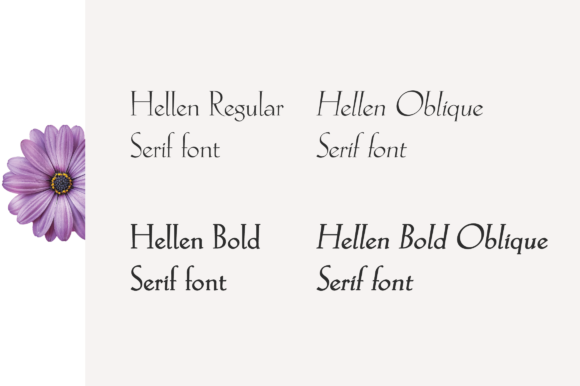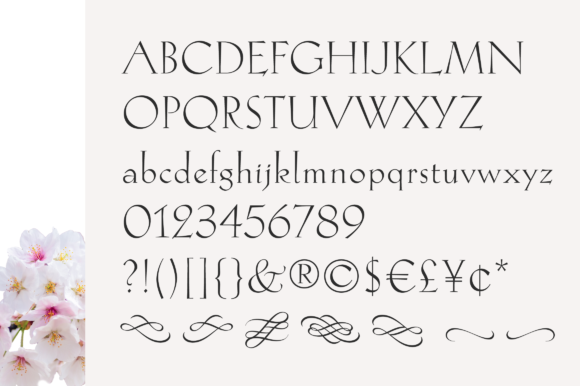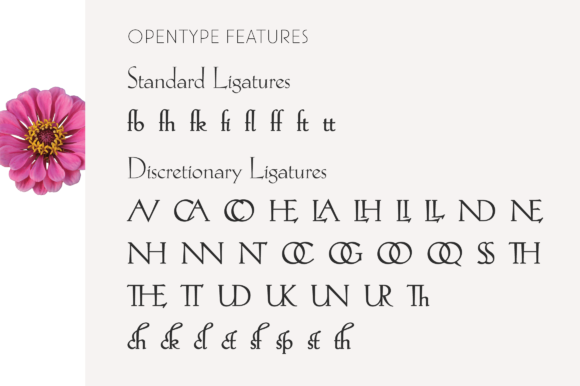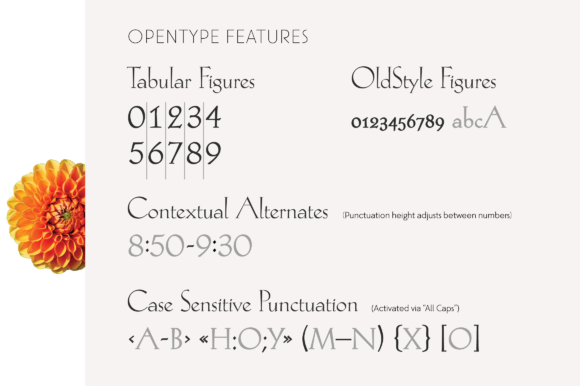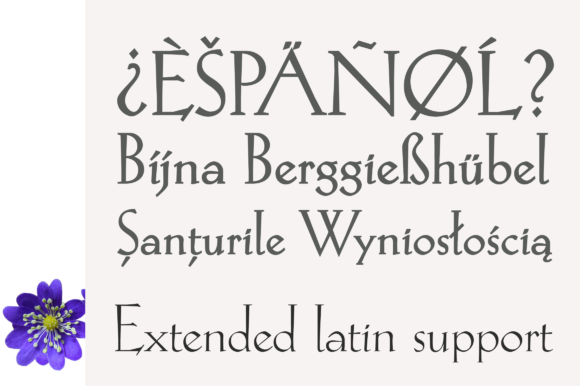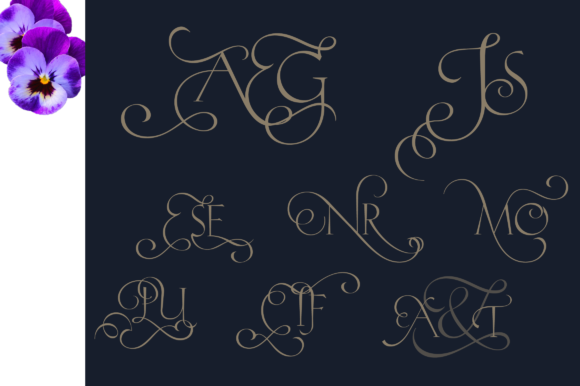
The Timeless Elegance of Hellen Font: A Classic Serif Typeface for Sophisticated Designs
In the world of typography, few fonts have managed to stand the test of time like the Hellen Font. This elegant classic serif font, based on the Koch Antiqua typeface, was created in 1922 by the renowned German designer Rudolf Koch. With its delicate features and low x-height, the Hellen Font is a masterpiece designed specifically for decorative and display use. In this article, we’ll explore the history, characteristics, and uses of the Hellen Font, making it a must-read for designers and crafters looking to elevate their projects.
A Brief History of Hellen Font
The Hellen Font has its roots in the Koch Antiqua typeface, designed by Rudolf Koch in 1922. Koch, a prominent figure in the world of typography, was known for his work with the German foundry, Klingspor. The Koch Antiqua typeface was one of his most notable creations, characterized by its elegant and refined features. The Hellen Font is a modern interpretation of this classic typeface, offering a range of styles to suit various design needs.
Characteristics of Hellen Font
The Hellen Font is distinguished by its delicate features and low x-height, making it an ideal choice for decorative and display use. The font’s classic serif design exudes elegance and sophistication, perfect for projects that require a touch of refinement. The Hellen Font family includes regular, bold, and oblique styles, providing designers with a range of options to suit their creative vision.
Uses of Hellen Font
The Hellen Font’s versatility makes it suitable for a wide range of design projects. Some of the most popular uses of this font include:
- Wedding Invites: The Hellen Font’s elegant features make it perfect for wedding invitations, adding a touch of sophistication to your special day.
- Book Covers: The font’s classic design and delicate features make it an excellent choice for book covers, particularly for fiction and non-fiction titles that require a touch of elegance.
- Headlines: The Hellen Font’s bold and oblique styles make it ideal for headlines, adding a touch of drama and flair to your designs.
- Logotypes: The font’s unique features make it suitable for logotypes, providing a distinctive and memorable brand identity.
- Posters: The Hellen Font’s elegant design makes it perfect for posters, adding a touch of sophistication to your promotional materials.
- Letterhead: The font’s classic design makes it suitable for letterhead, providing a professional and elegant look for your business correspondence.
- Greeting Cards: The Hellen Font’s delicate features make it perfect for greeting cards, adding a touch of warmth and elegance to your messages.
- Monograms: The font’s unique features make it suitable for monograms, providing a distinctive and memorable design element.
Why Choose Hellen Font?
The Hellen Font offers a range of benefits for designers and crafters, including:
- Elegance: The font’s classic serif design exudes elegance and sophistication, making it perfect for projects that require a touch of refinement.
- Versatility: The Hellen Font family includes regular, bold, and oblique styles, providing designers with a range of options to suit their creative vision.
- Timelessness: The font’s classic design ensures that it will remain a timeless choice for years to come, making it a valuable addition to your design library.
| Font Name | Hellen Font |
| Author | Genilson Santos |
The Hellen Font is a timeless and elegant classic serif font, perfect for designers and crafters looking to elevate their projects. With its delicate features, low x-height, and range of styles, this font is suitable for a wide range of design applications. Whether you’re working on a wedding invitation, book cover, or logotype, the Hellen Font is an excellent choice. Its versatility, elegance, and timelessness make it a valuable addition to your design library.
So why not give the Hellen Font a try? With its rich history, elegant design, and versatility, it’s sure to become a favorite in your design arsenal.